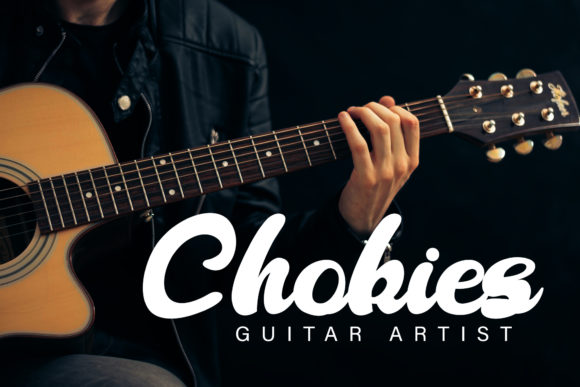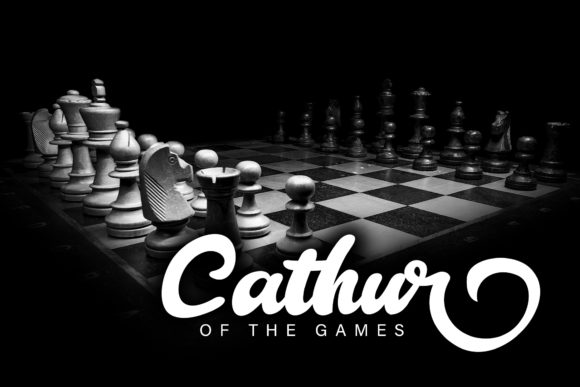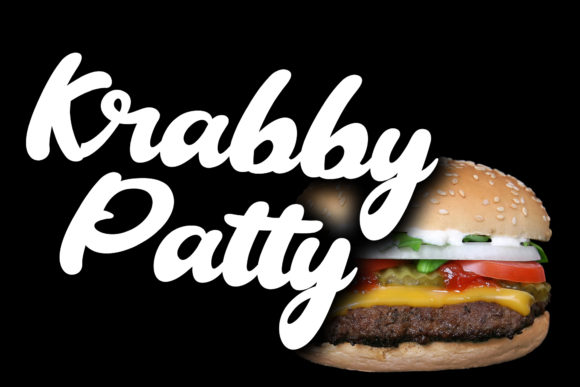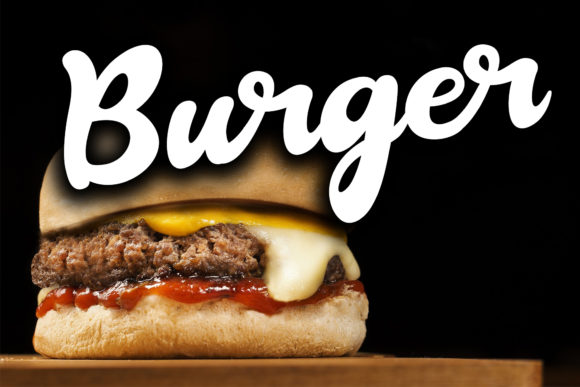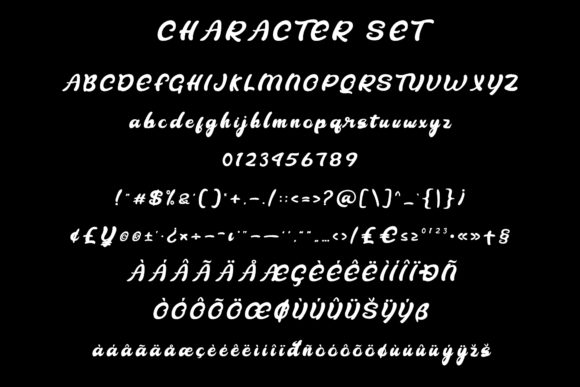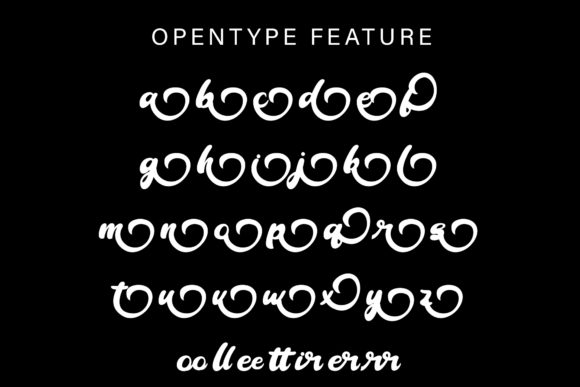
Gandhi Font: Elevate Your Designs with a Playful and Unique Script Font
Are you tired of using the same old fonts in your designs? Look no further than the Gandhi Font, a beautiful script font that is sure to take your creations to the next level. With its playful rounded characters and unique style, Gandhi Font is the perfect choice for designers and crafters looking to add a touch of personality to their work.
What is Gandhi Font?
Gandhi Font is a script font that is inspired by the handwriting of Mahatma Gandhi, the Indian independence activist. However, it’s not a direct replica of his handwriting, but rather a creative interpretation of his style. The font features playful rounded characters that give it a friendly and approachable feel. The unique style of Gandhi Font makes it stand out from other script fonts, and its versatility makes it suitable for a wide range of design projects.
Key Features of Gandhi Font
- Playful Rounded Characters: The rounded characters of Gandhi Font give it a soft and friendly feel, making it perfect for designs that require a personal touch.
- Unique Style: Gandhi Font has a distinct style that sets it apart from other script fonts. Its unique character shapes and flourishes make it a great choice for designers looking to add some personality to their work.
- Versatile: Gandhi Font is suitable for a wide range of design projects, from branding and advertising to packaging and digital media.
- Easily Readable: Despite its playful nature, Gandhi Font is easily readable, making it perfect for body text and headlines.
Uses of Gandhi Font
Gandhi Font is a versatile font that can be used in a variety of design projects, including:
- Branding and Advertising: Use Gandhi Font to create unique and memorable brand identities, logos, and ad campaigns.
- Packaging Design: Add a personal touch to your packaging designs with Gandhi Font, making your products stand out on store shelves.
- Digital Media: Use Gandhi Font in your digital media projects, such as social media graphics, blog posts, and website designs.
- Crafting and Scrapbooking: Gandhi Font is also perfect for crafters and scrapbookers looking to add a personal touch to their projects.
Tips for Using Gandhi Font
Here are some tips for using Gandhi Font effectively in your designs:
- Use it as a Headline Font: Gandhi Font is perfect for headlines and titles, where its playful and unique style can shine.
- Pair it with Other Fonts: Experiment with pairing Gandhi Font with other fonts to create interesting and dynamic typography.
- Adjust the Size and Color: Play around with different sizes and colors to make Gandhi Font work best for your design.
In conclusion, Gandhi Font is a beautiful script font that is sure to elevate your designs to the next level. Its playful rounded characters and unique style make it a great choice for designers and crafters looking to add a touch of personality to their work. With its versatility and readability, Gandhi Font is suitable for a wide range of design projects. So why not give Gandhi Font a try and see how it can take your designs to new heights?